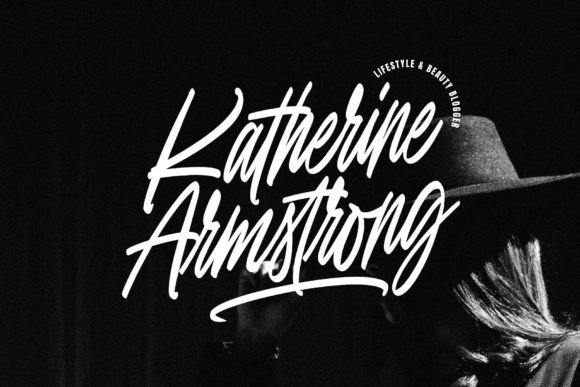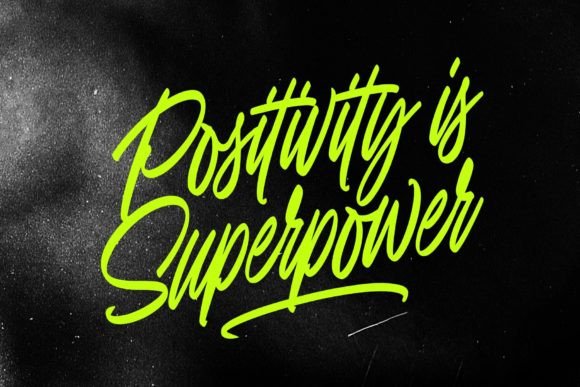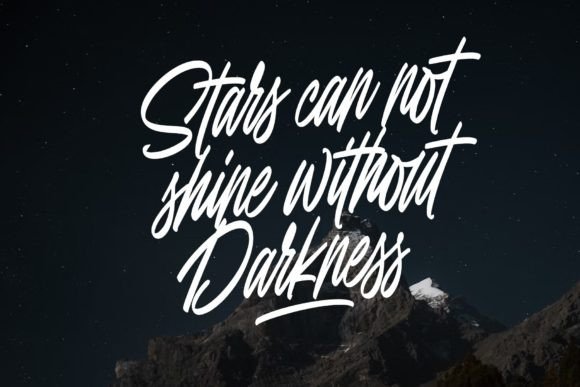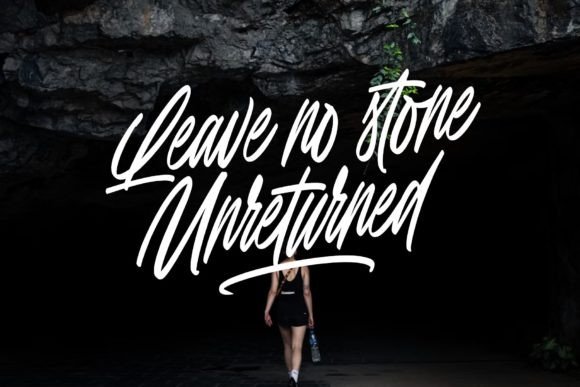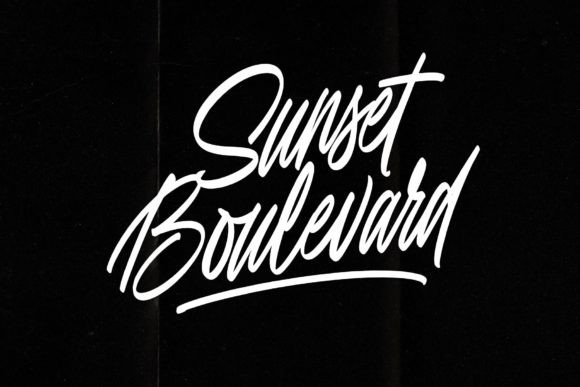
Introduction to Favorable Whispering Midnight Font
Favorable Whispering Midnight is a graceful and atmospheric brush script typeface that combines the spontaneity of handwritten notes with the expressive texture of brush strokes.
Its smooth, flowing letterforms convey elegance and intimacy, making it perfect for designs that aim to capture a sense of quiet sophistication and understated beauty .
Key Features of Favorable Whispering Midnight Font
Why Choose Favorable Whispering Midnight Font?